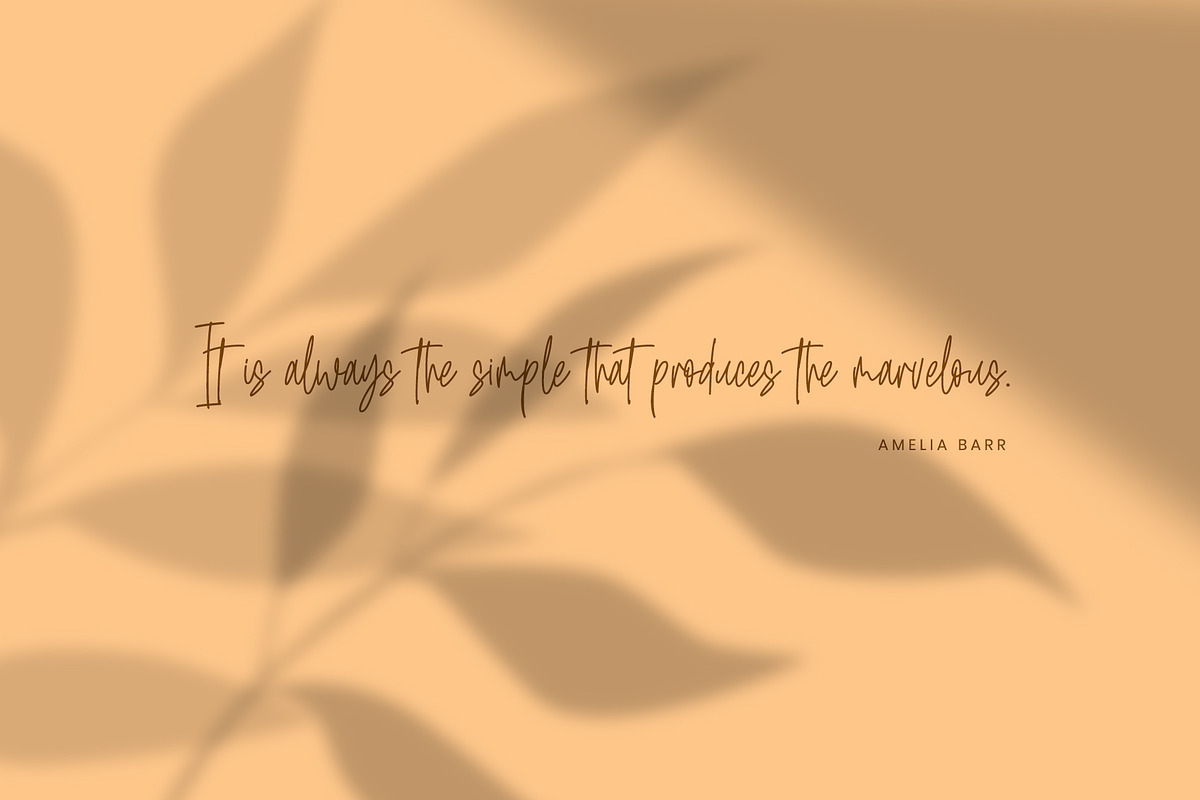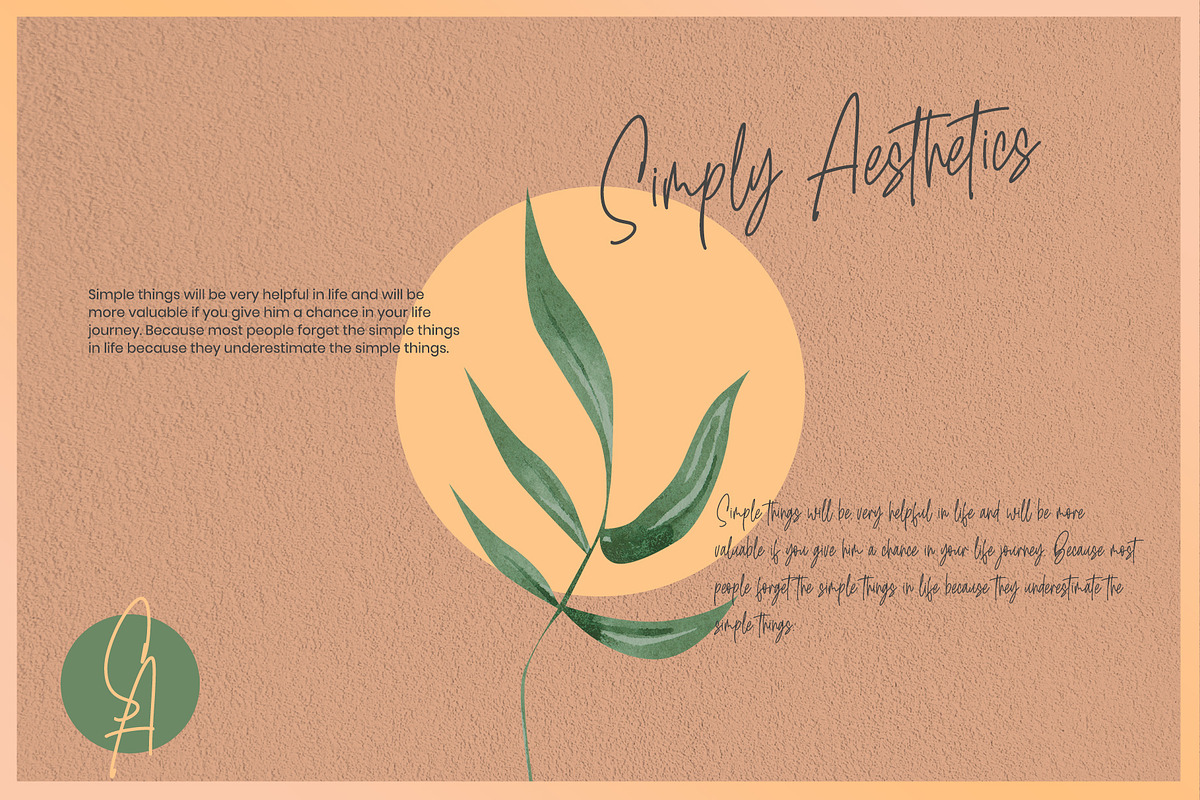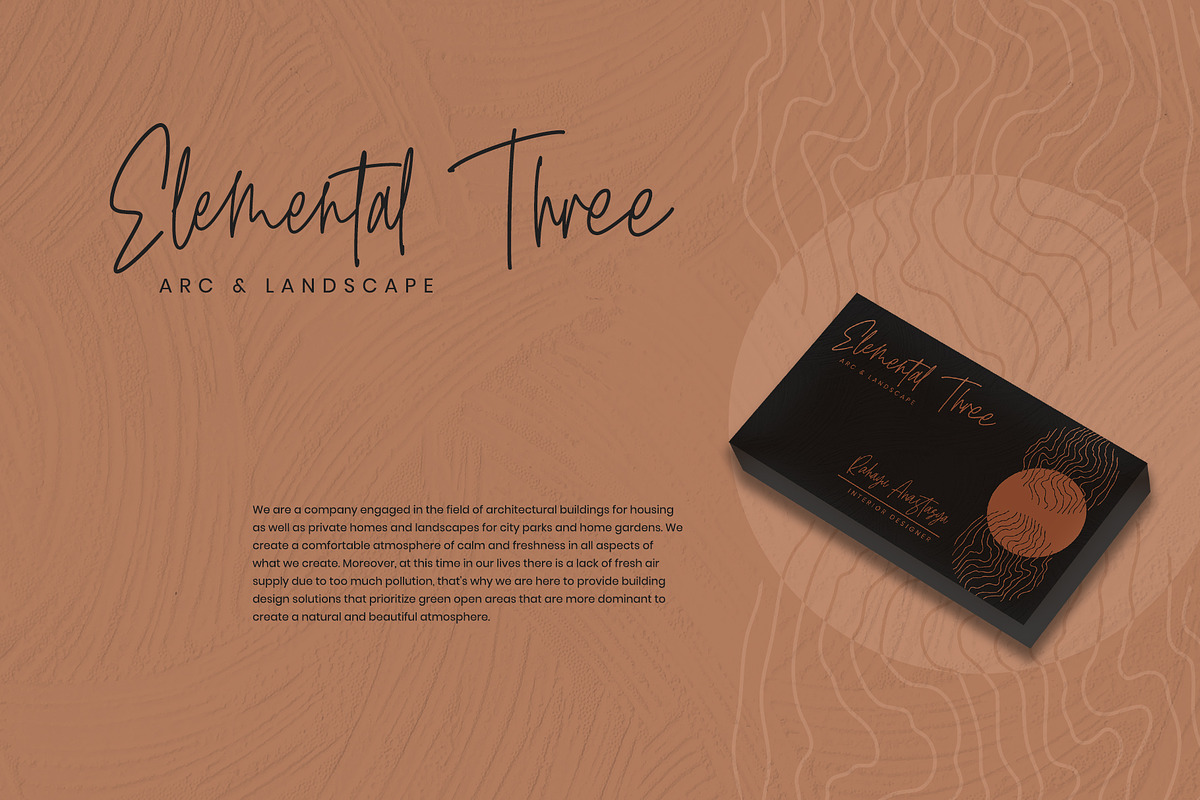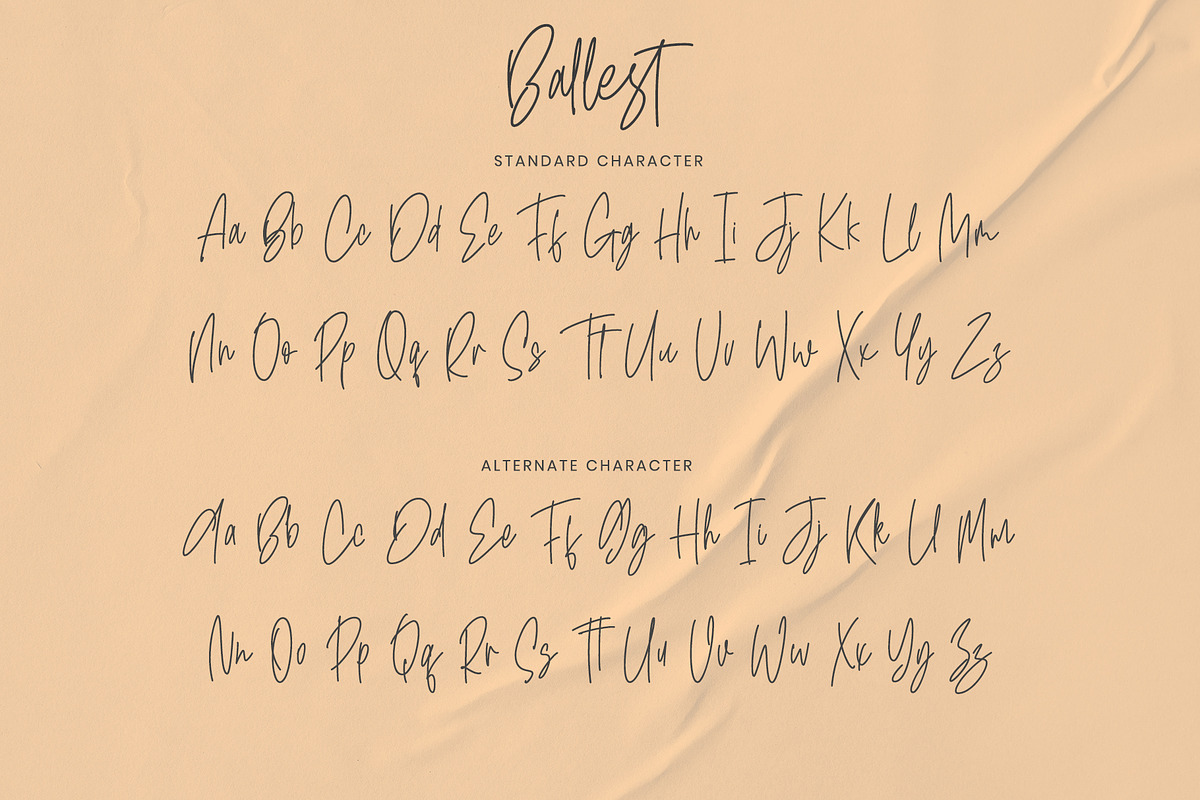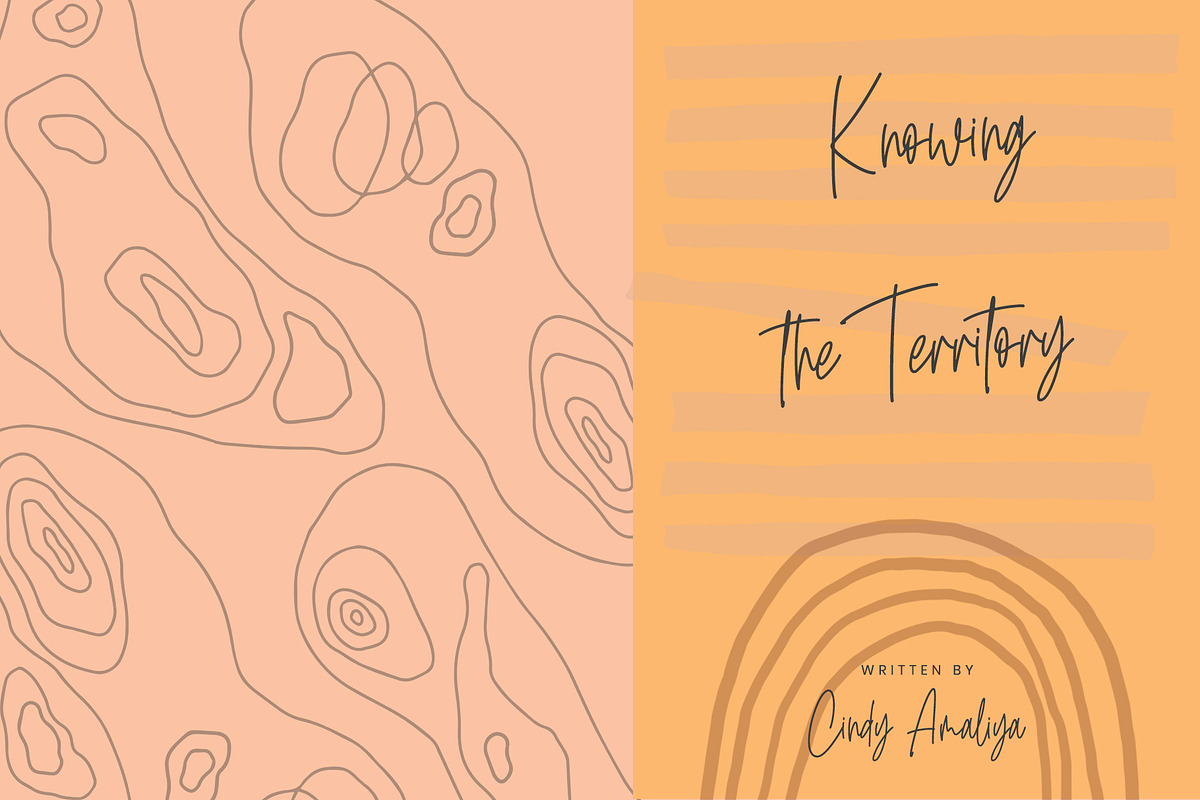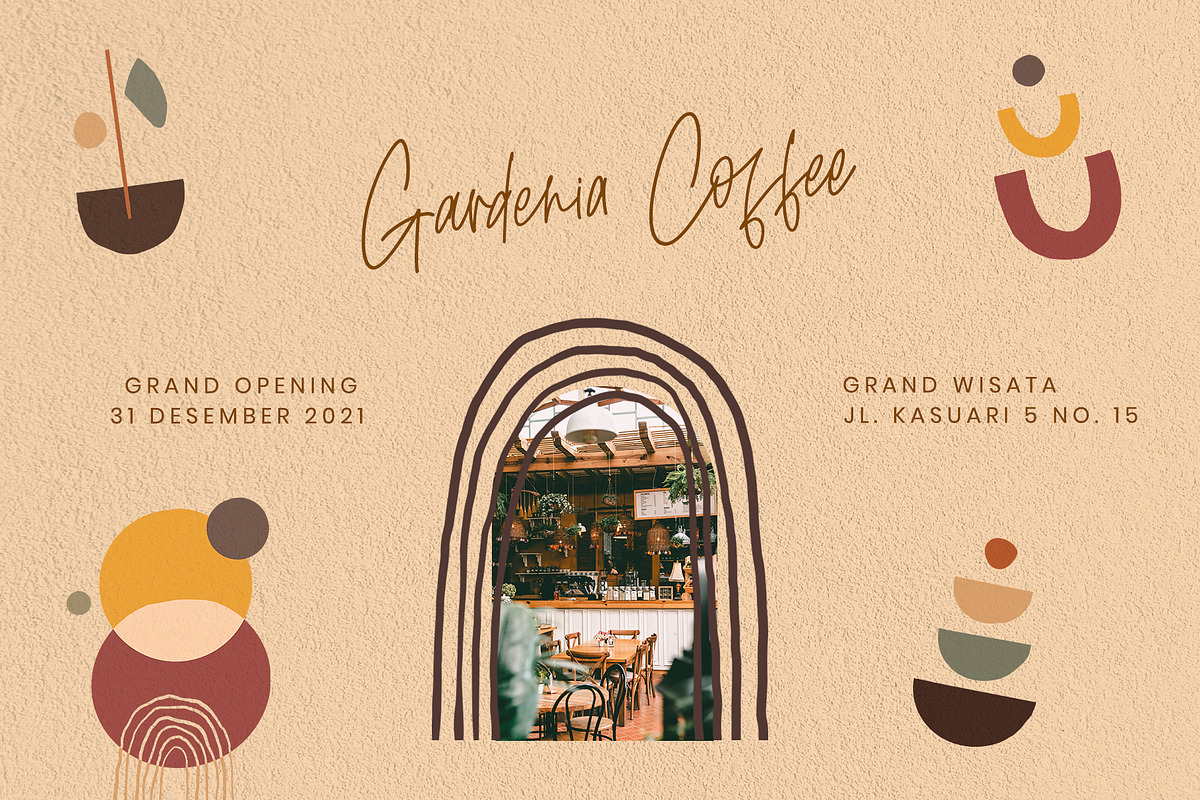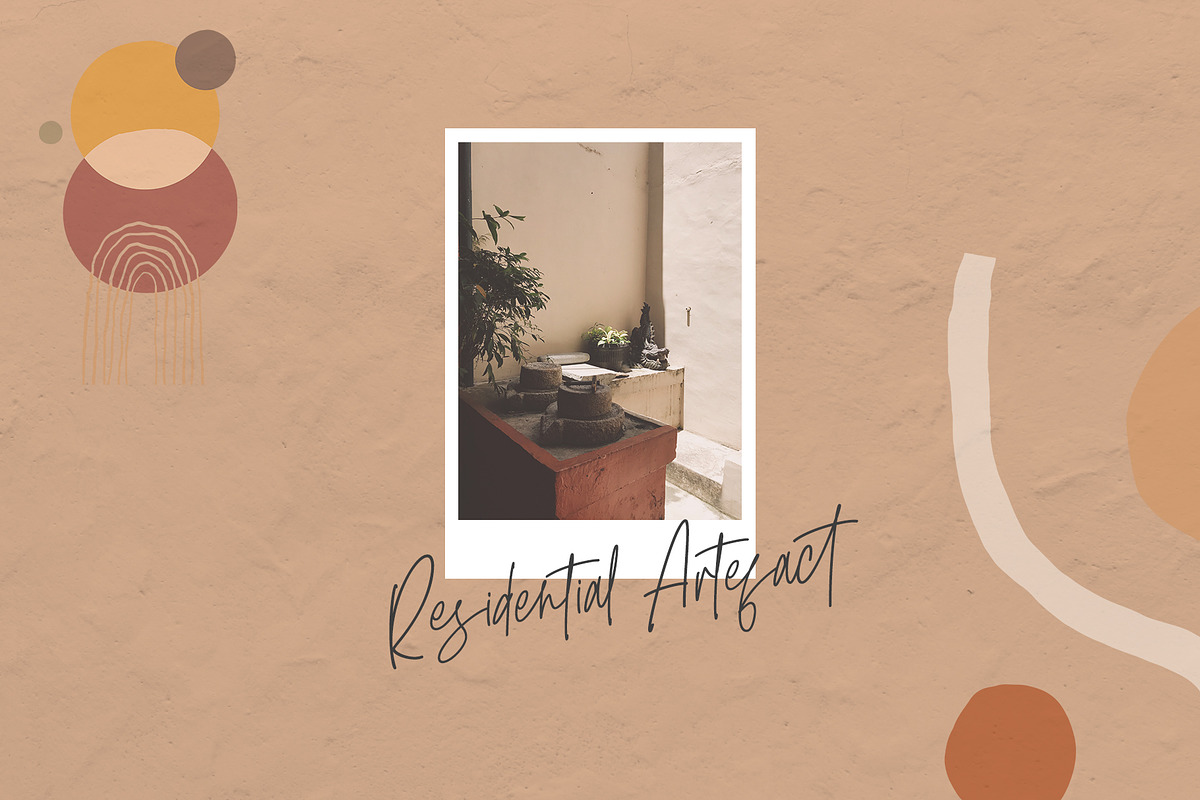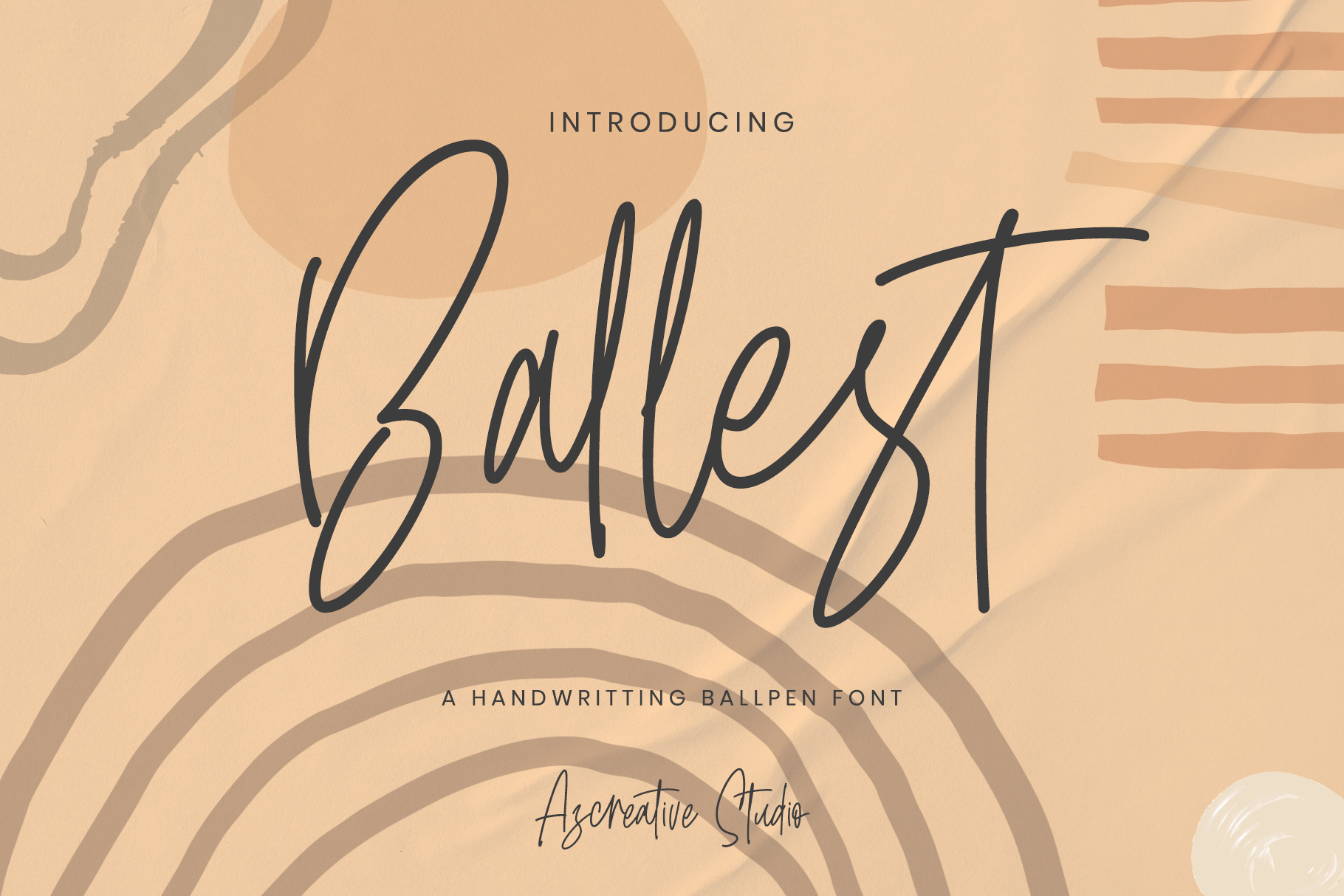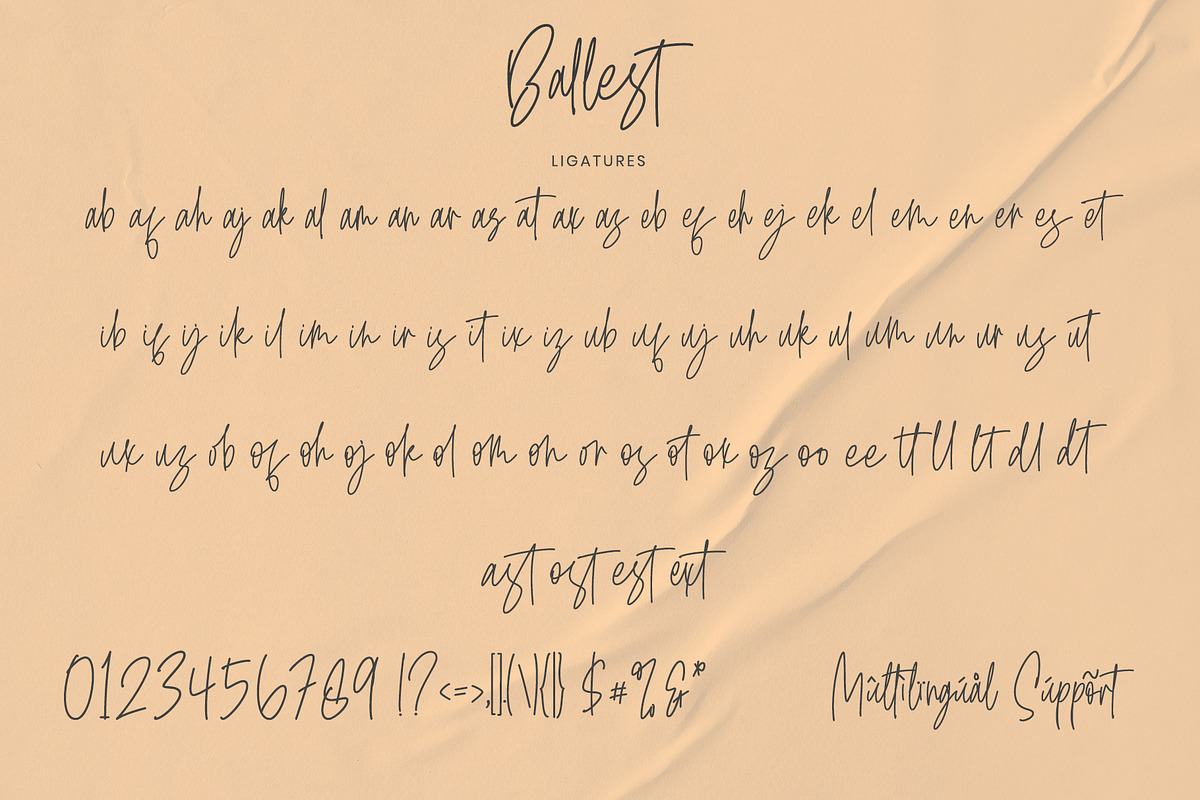
Ballest - Monoline Signature Font
Introducing Ballest, a handwritten font with a sleek monoline style. This font is inspired by some people who have matching handwriting so this font will be perfect for creating your designs. You can create various designs with this font, such as invitation designs, posters, business cards, logotypes, become fonts on your website and much more.